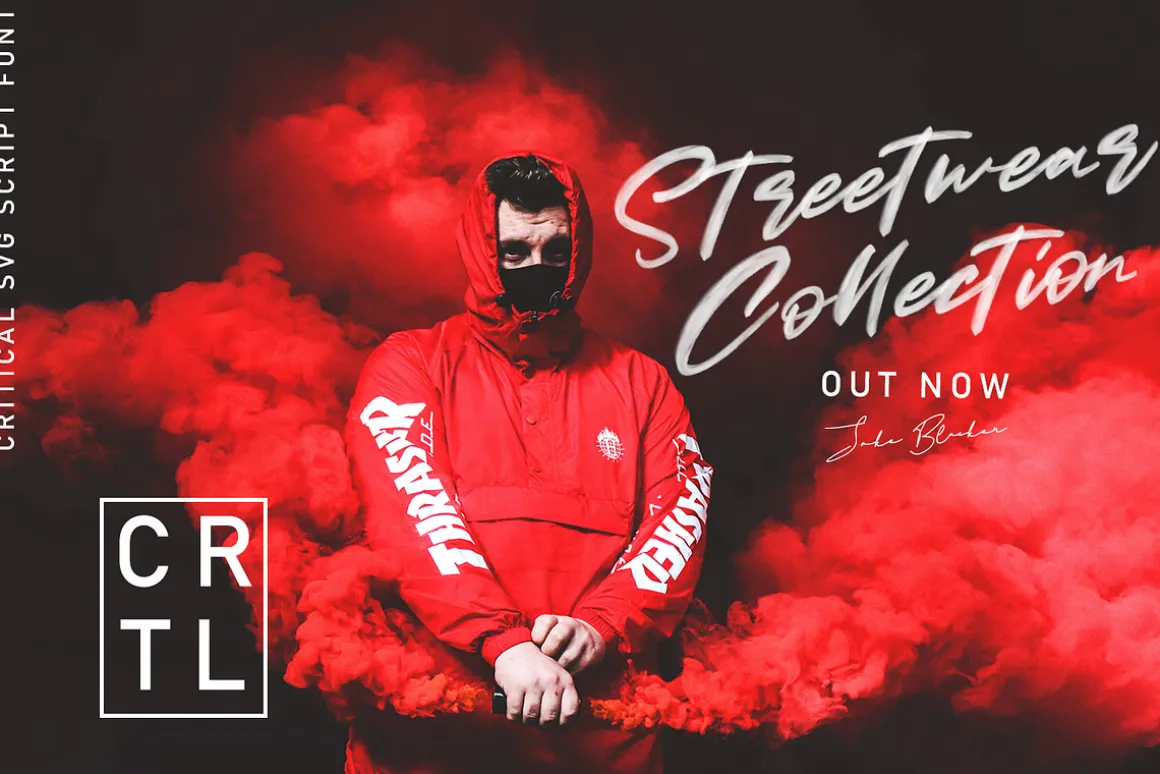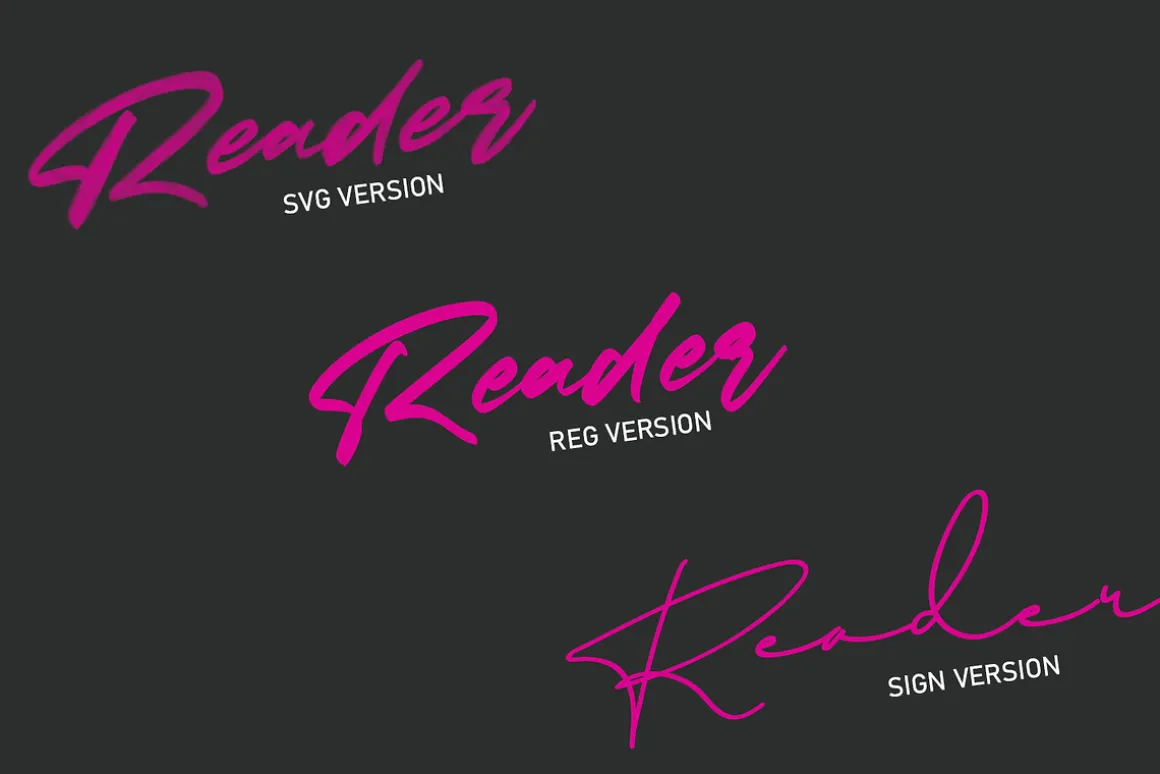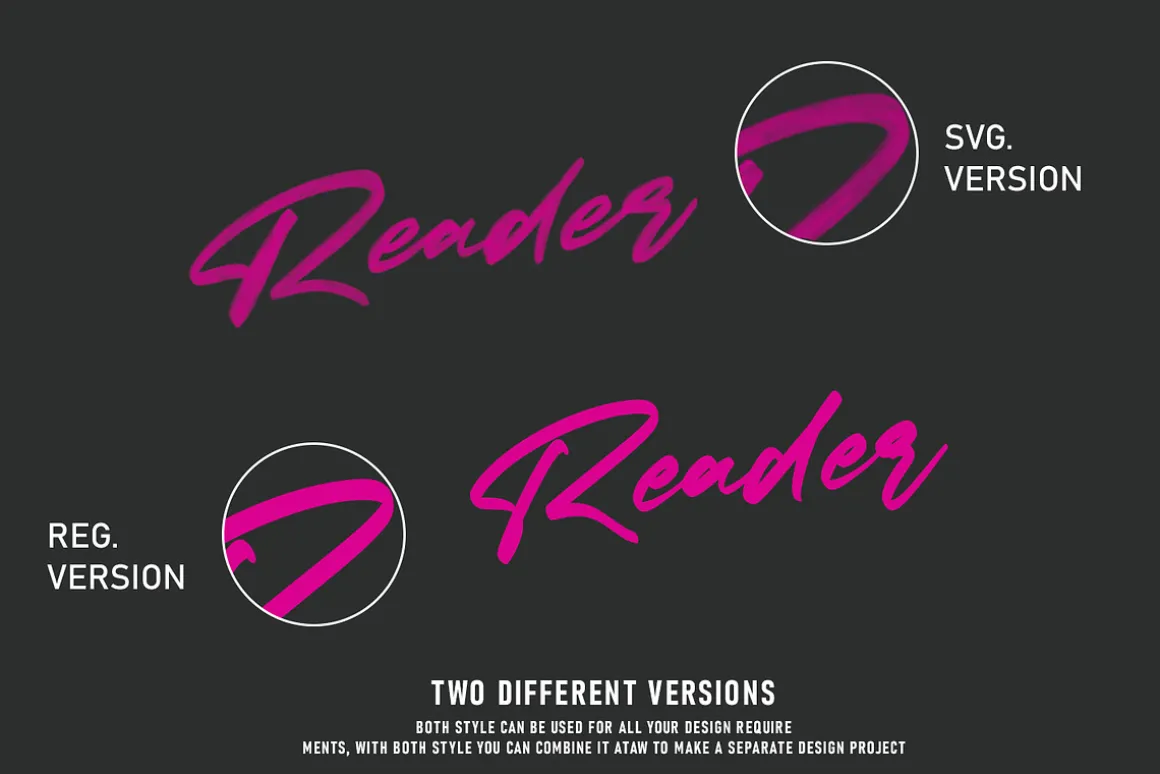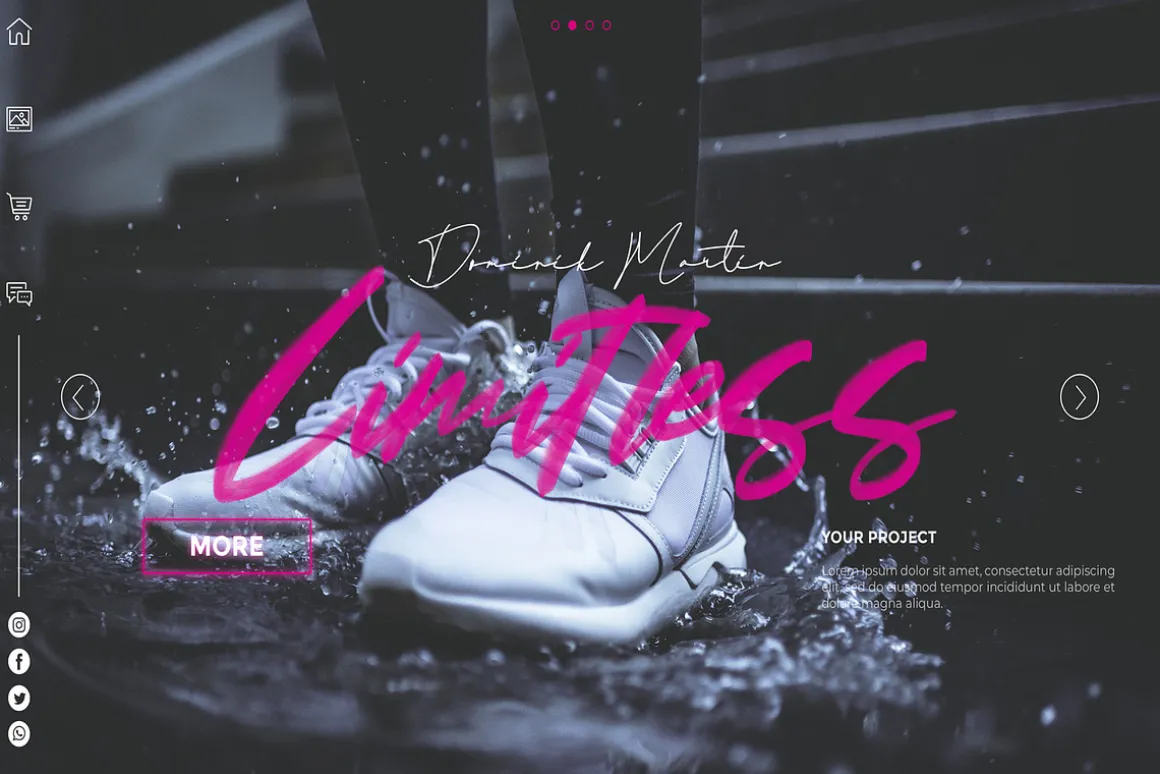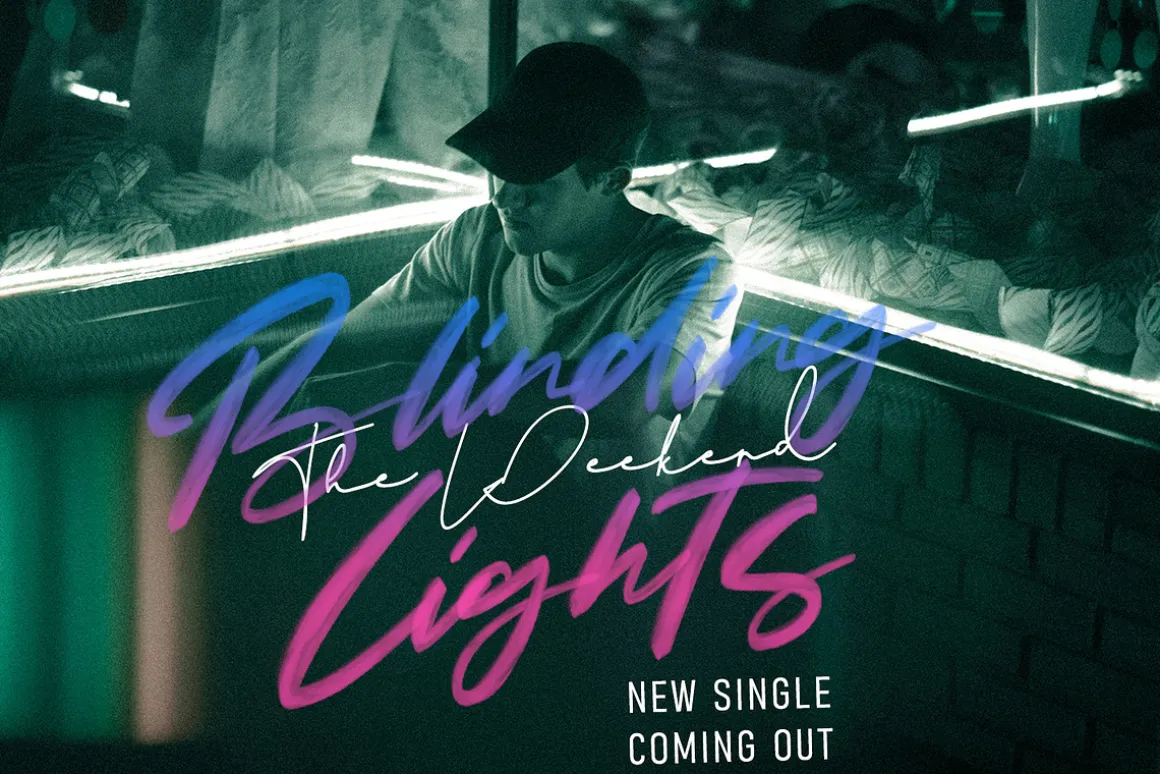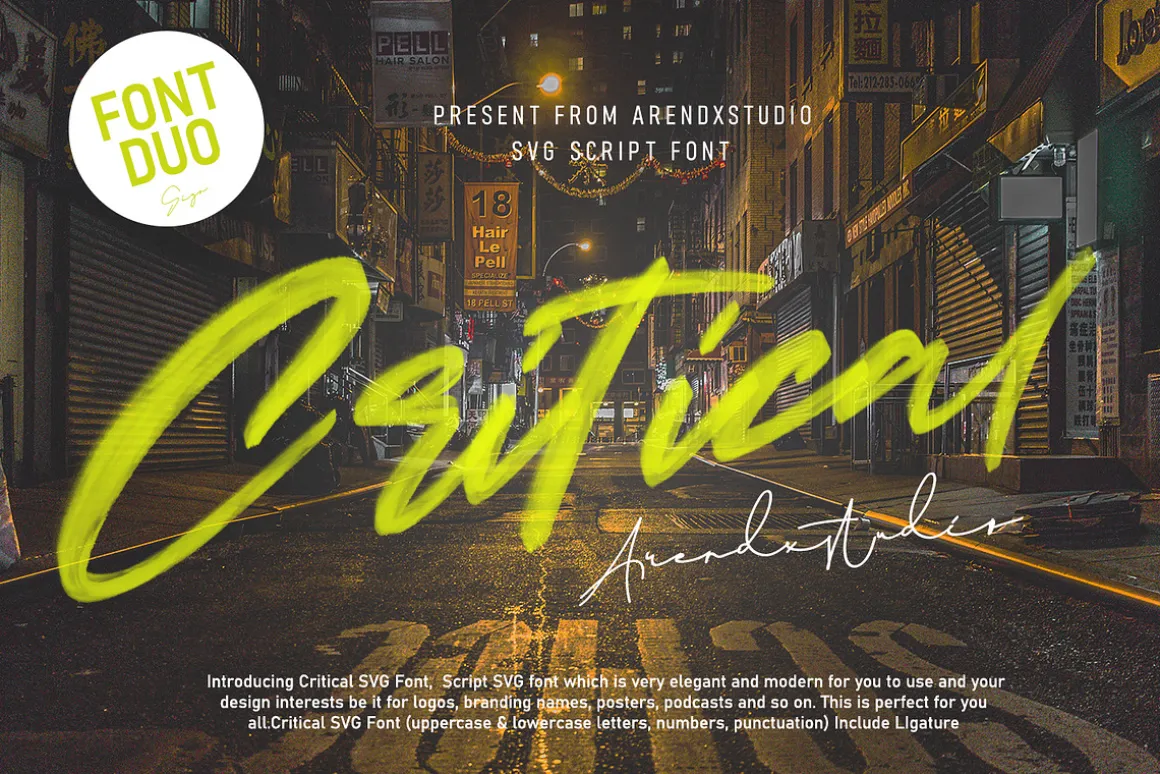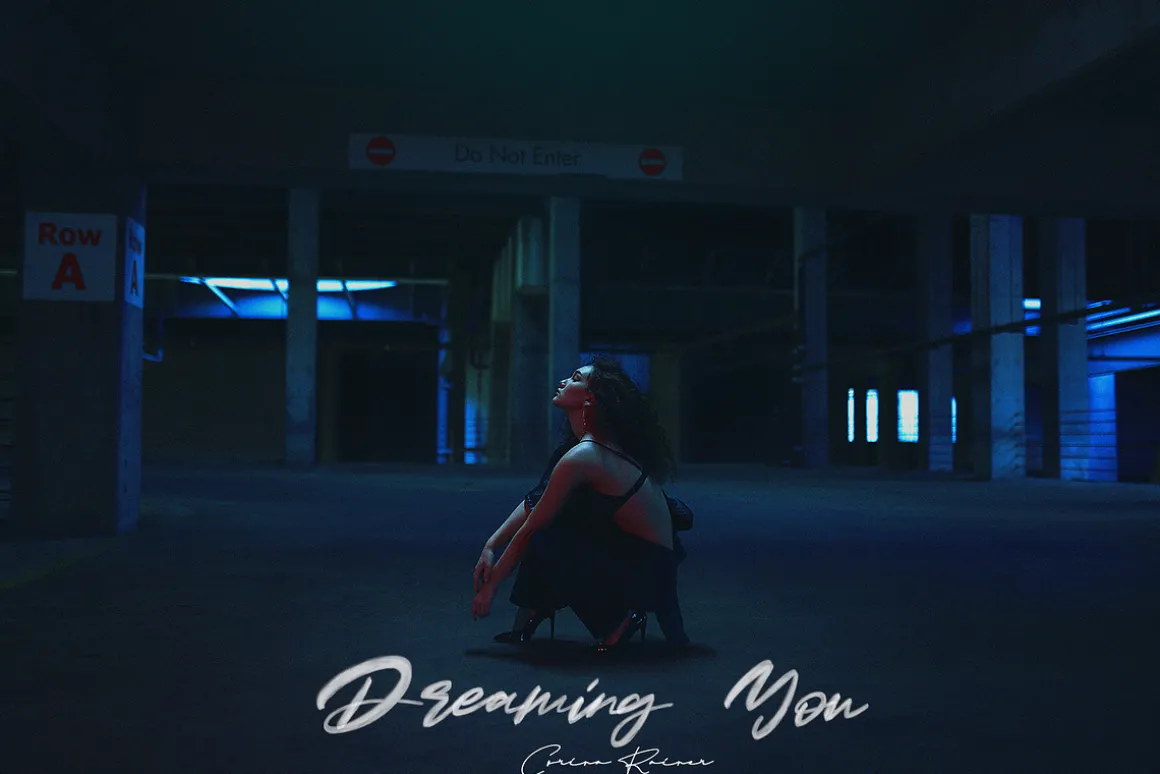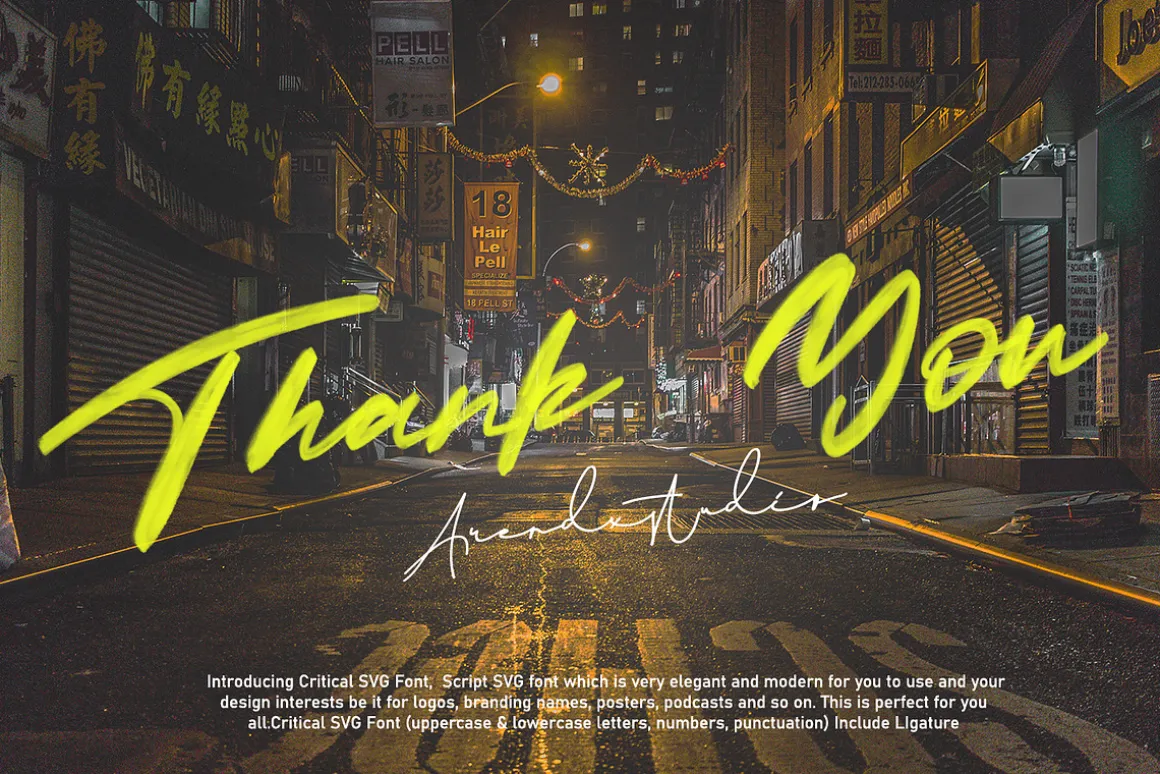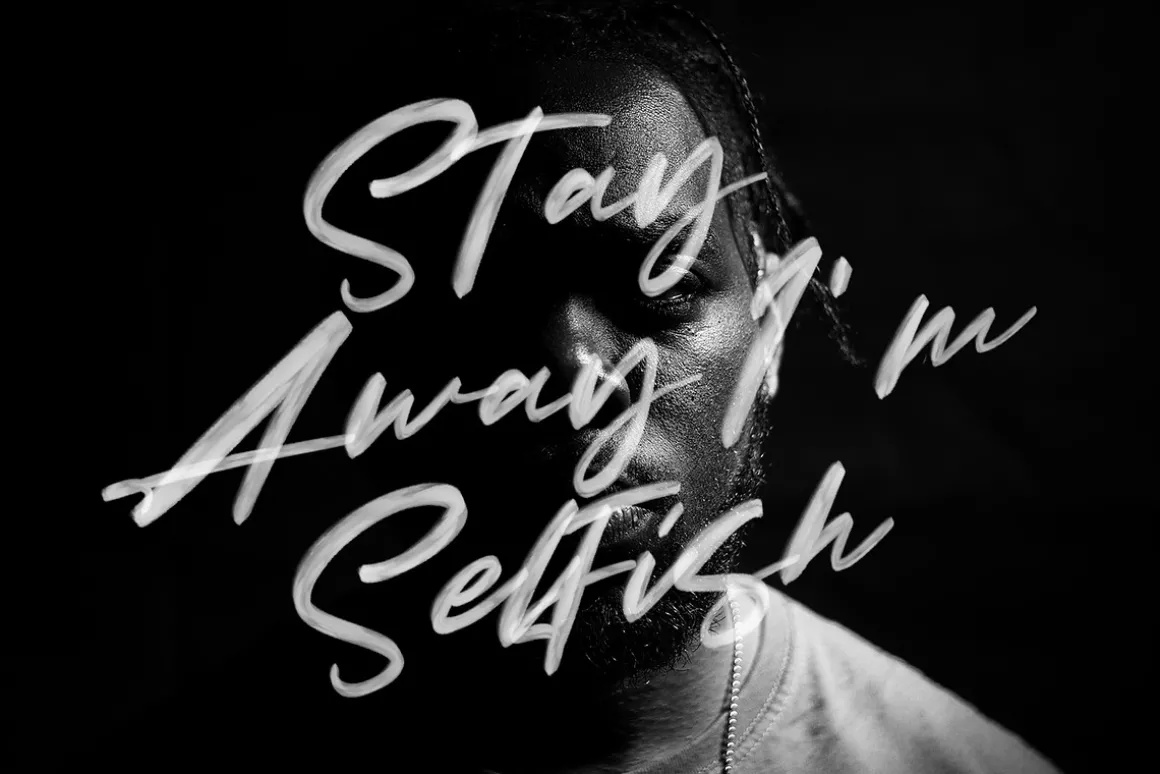
Critical SVG Font is a strong Script SVGfont with detailed textures so it looks good to implement in various designs of your project and your design interests be it for logos, branding names, posters, podcasts and so on. This is perfect for you all.